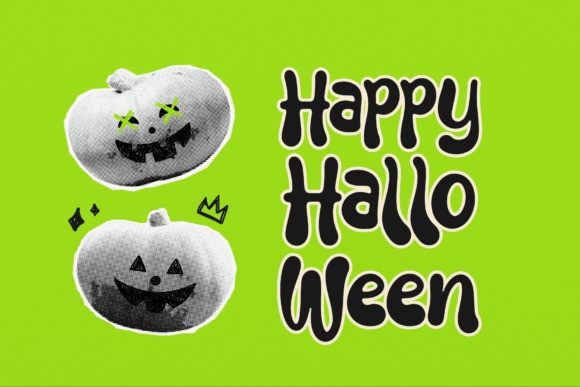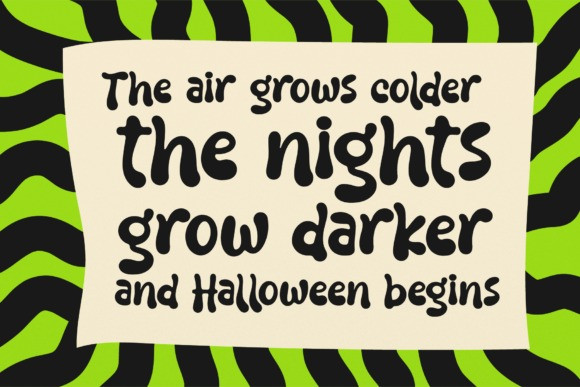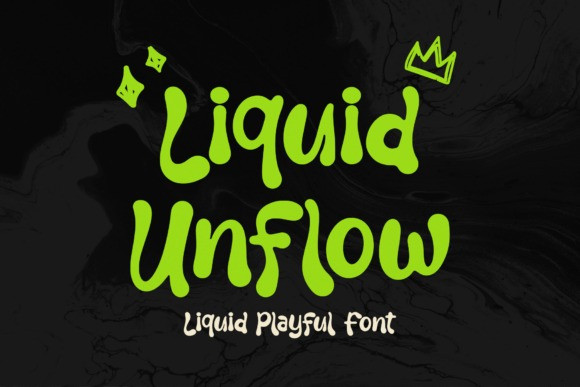
Liquid Unflow Font
Liquid Unflow Font an incredibly expressive display font. This typeface features fluid, heavy melting letterforms uniquely characterized by their wavy structural posture, bulbous baseline drops, and a casual hand-drawn energy that bridges the gap between retro grunge skateboard graphics and contemporary street style capsule branding. With its solid visual footprint and rebellious presence, Liquid Unflow is the premier choice for independent alternative streetwear logos, custom skate deck prints, boutique energy drink labeling, neon Halloween party invitations, and eye-catching social media headers.